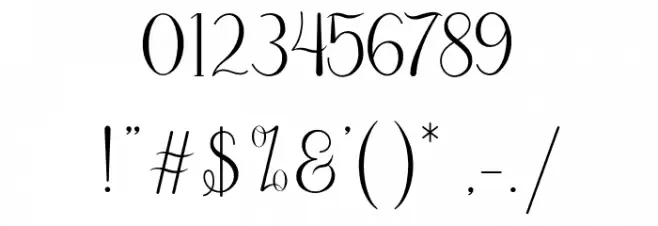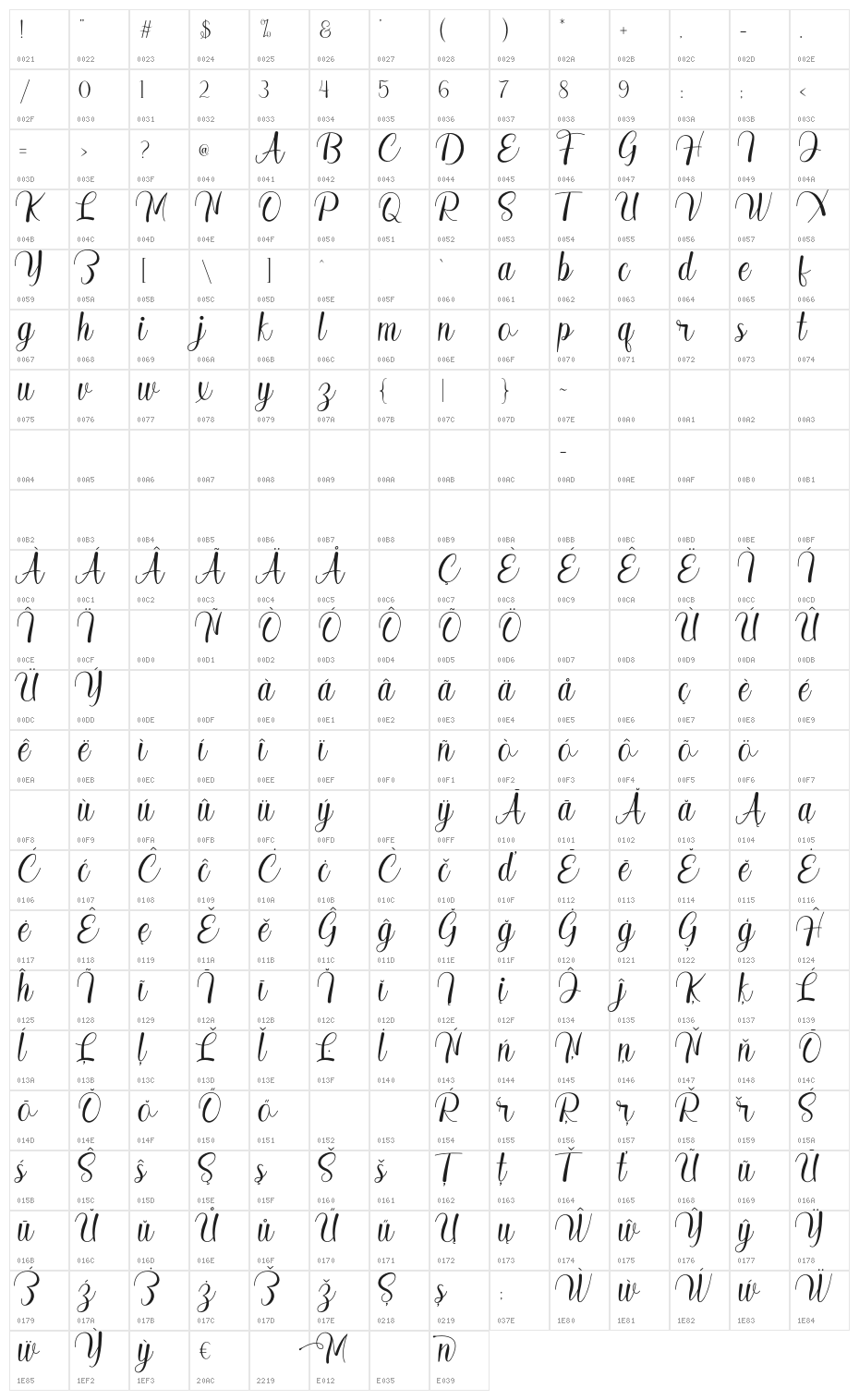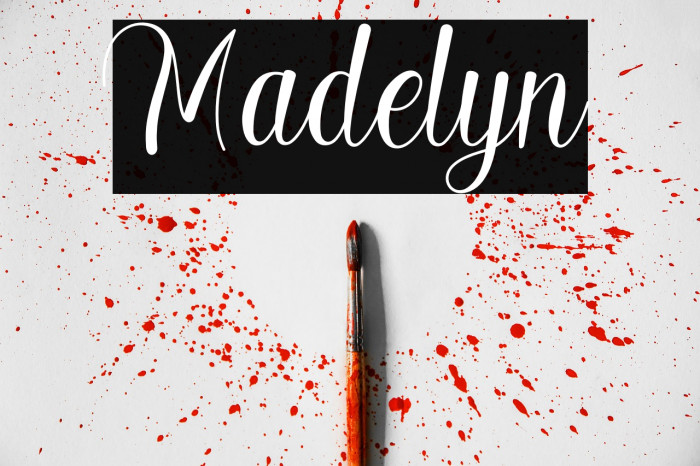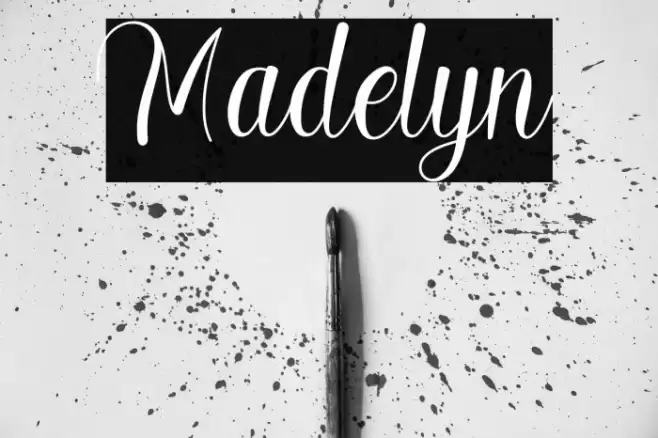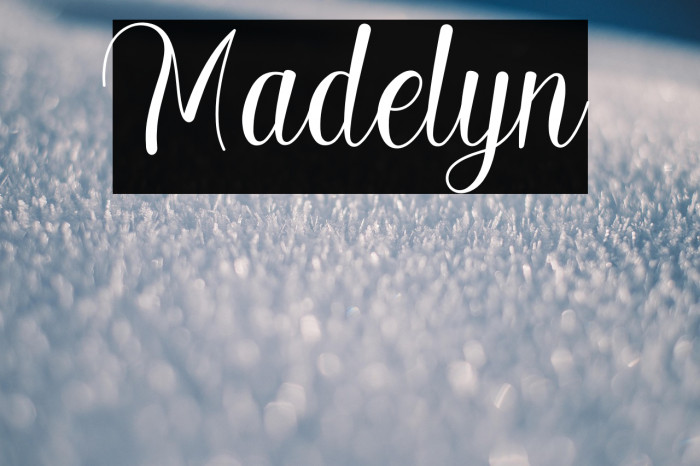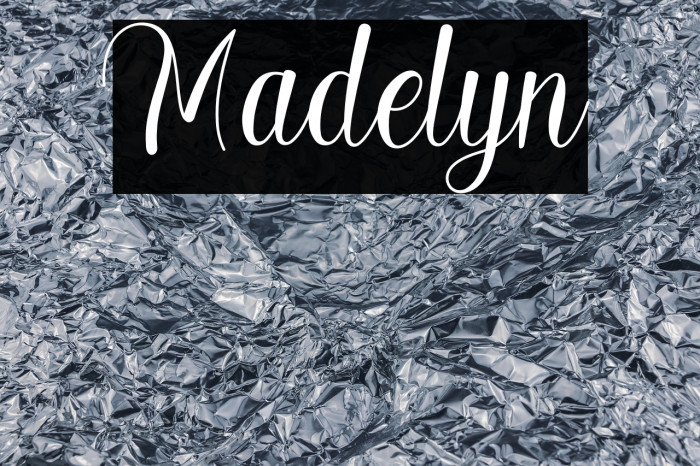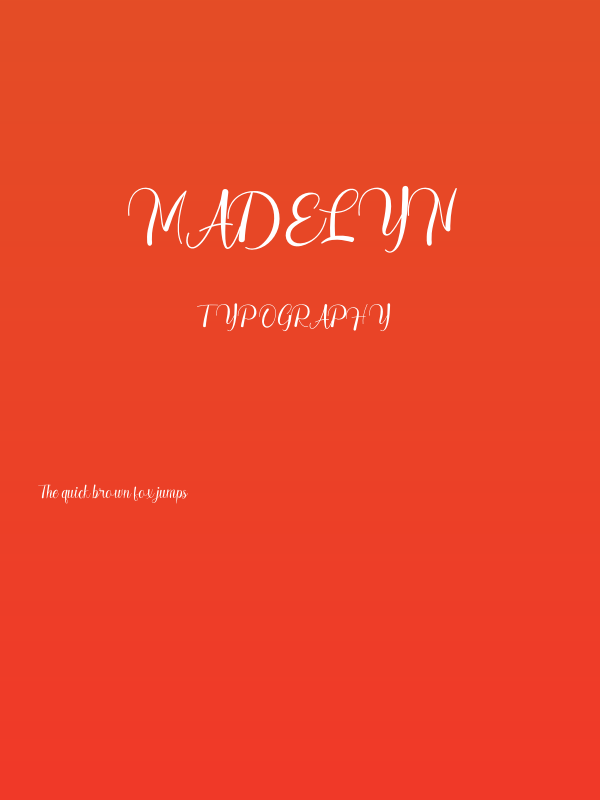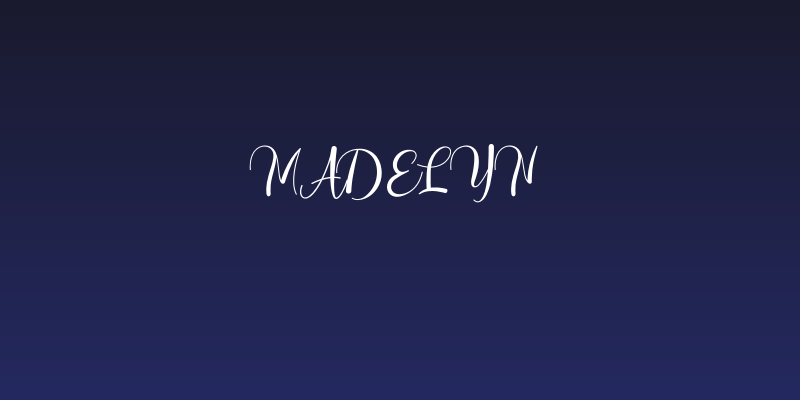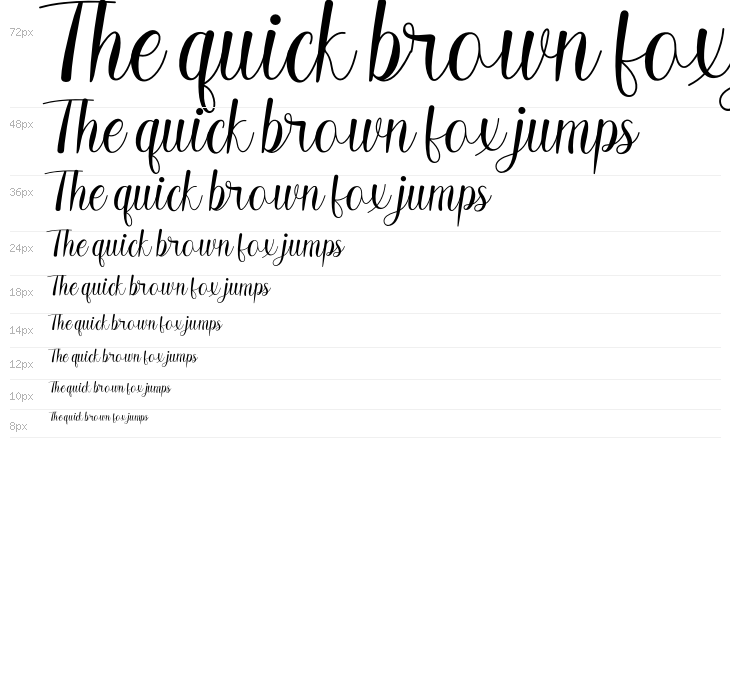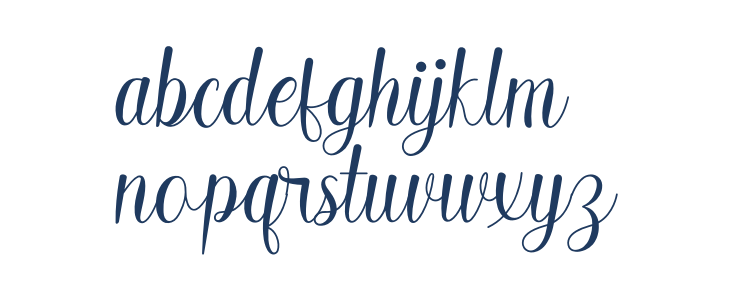
Madelyn Font
Madelyn Description
This elegant script font features fluid, graceful strokes that mimic the natural flow of handwriting. The uppercase letters are characterized by their sweeping curves and delicate loops, while the lowercase letters maintain a consistent rhythm with subtle variations in stroke width. The numerals and special characters complement the letterforms with their own unique flair, adding to the font's overall charm. The design is both sophisticated and approachable, making it suitable for a variety of applications where a personal touch is desired.